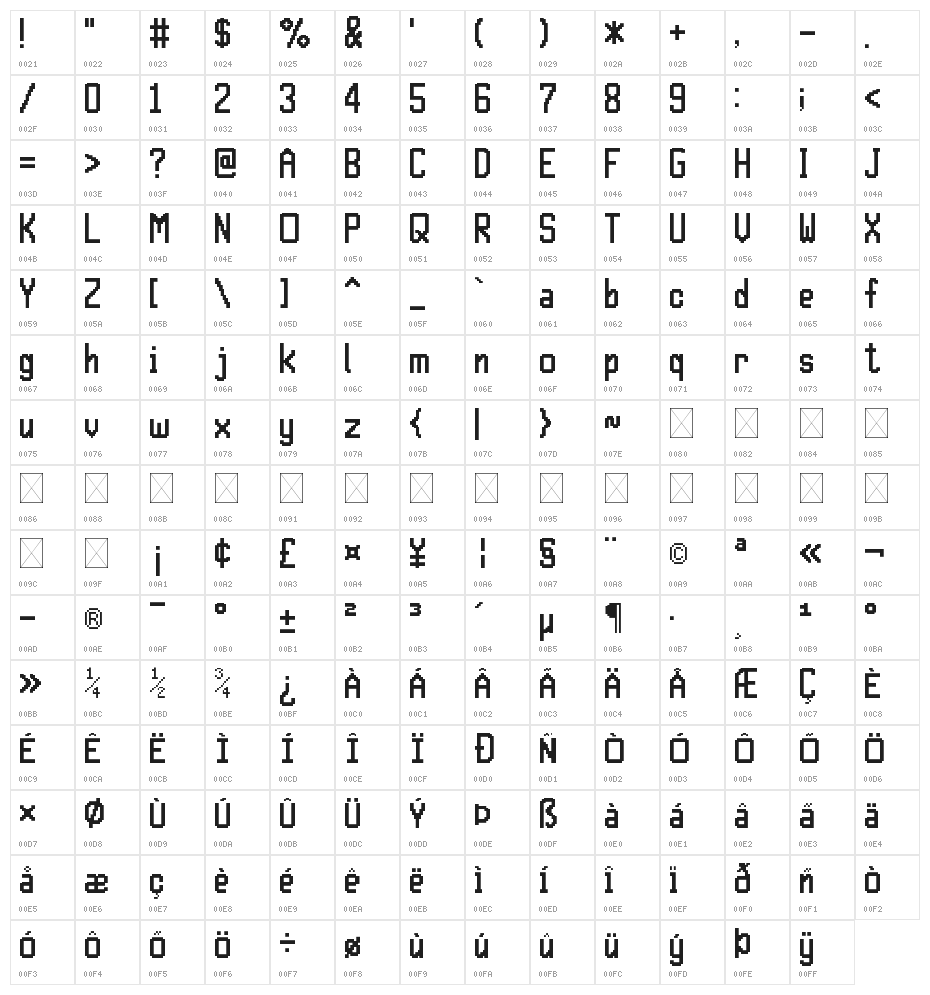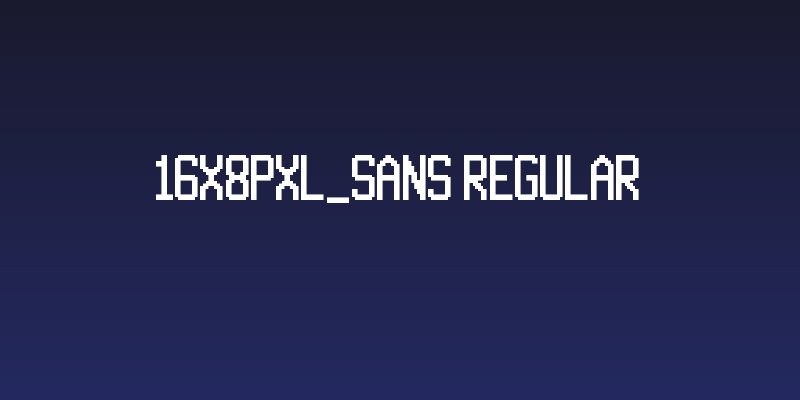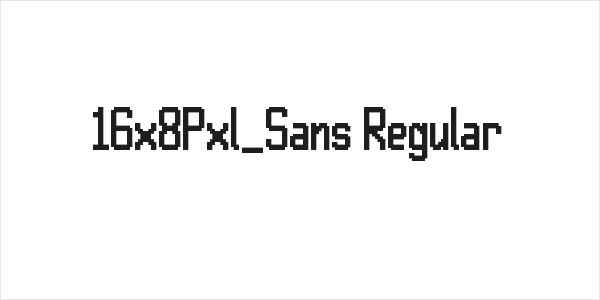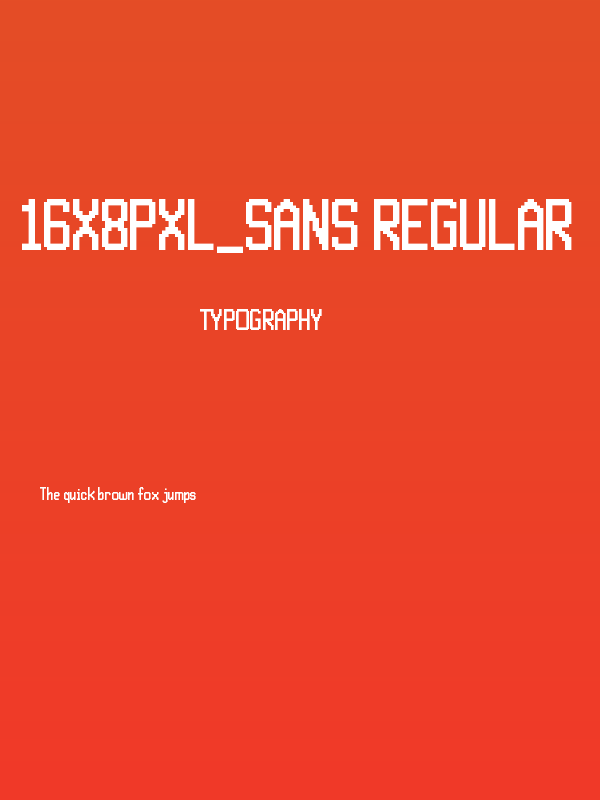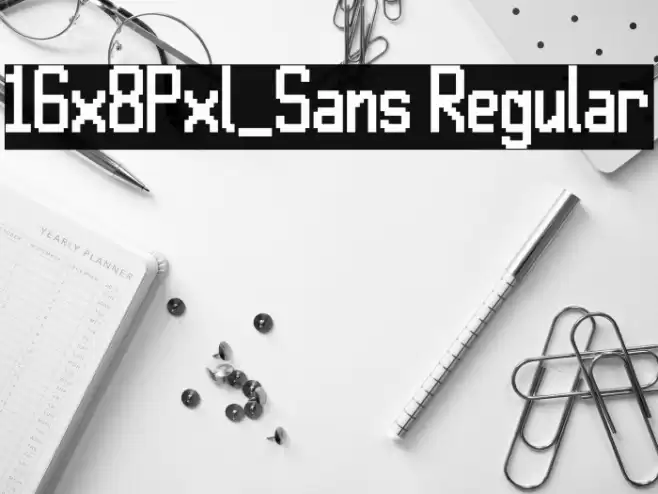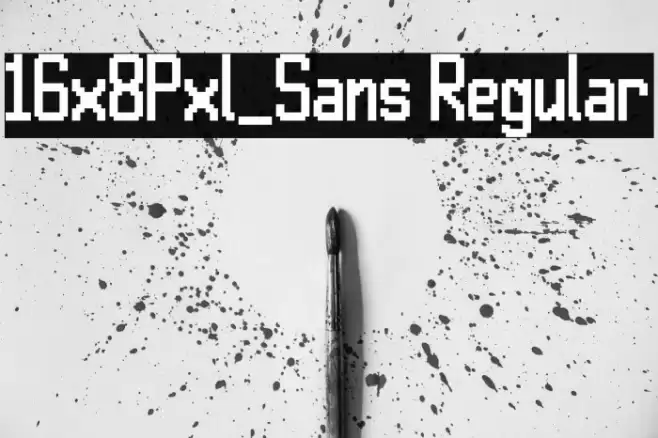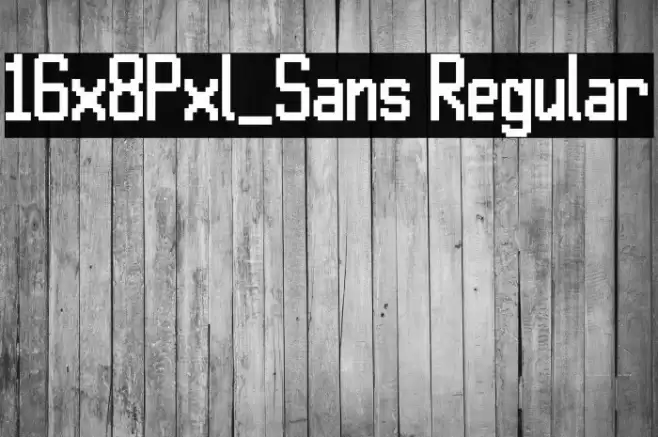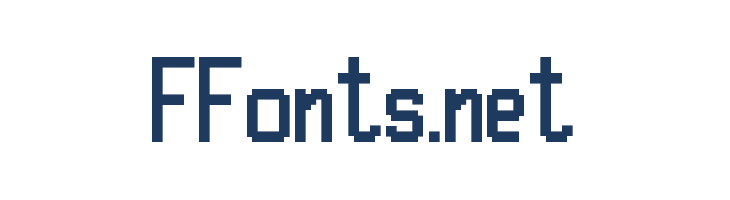
16x8Pxl_Sans Regular Font
16x8Pxl_Sans Regular Description
This font features a pixelated, monospaced design that is reminiscent of early digital displays and retro video games. Each character is constructed with a uniform grid-like structure, giving it a distinctly blocky and geometric appearance. The uppercase and lowercase letters maintain a consistent height, while the numerals and special characters are crafted with the same pixelated precision. This style evokes a sense of nostalgia and simplicity, making it ideal for projects that aim to capture a vintage digital aesthetic. The uniformity in character width ensures a balanced and orderly text presentation.
| Overall Style | Vintage |
| Use Case | Logos, Digital displays, Retro-themed projects |
| Proposed Projects | Ideal for retro video game designs, digital art projects, and any creative work that seeks to evoke a nostalgic digital feel. |